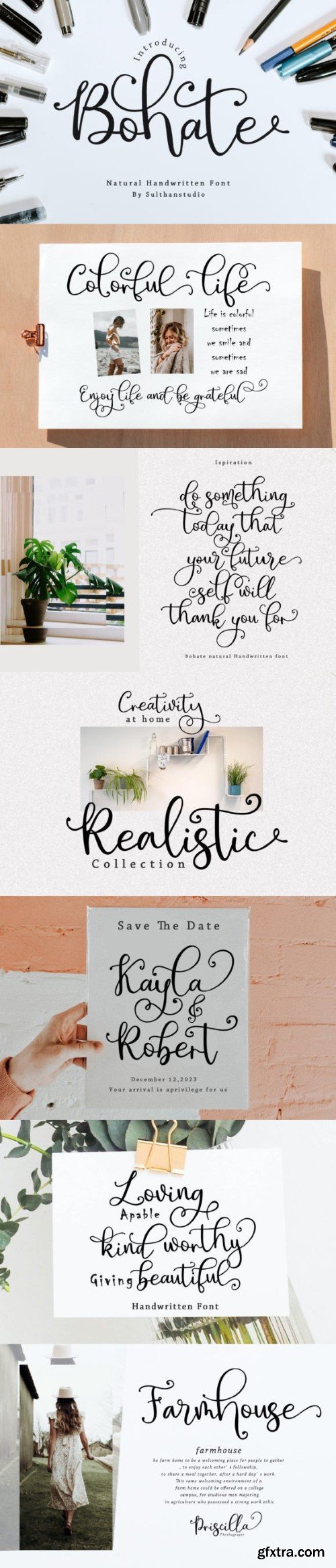
Boxate 字体
Bohate is a sweet and friendly handwritten font. Its natural and unique style makes it incredibly fitting to a large pool of designs. The only limit is your imagination!